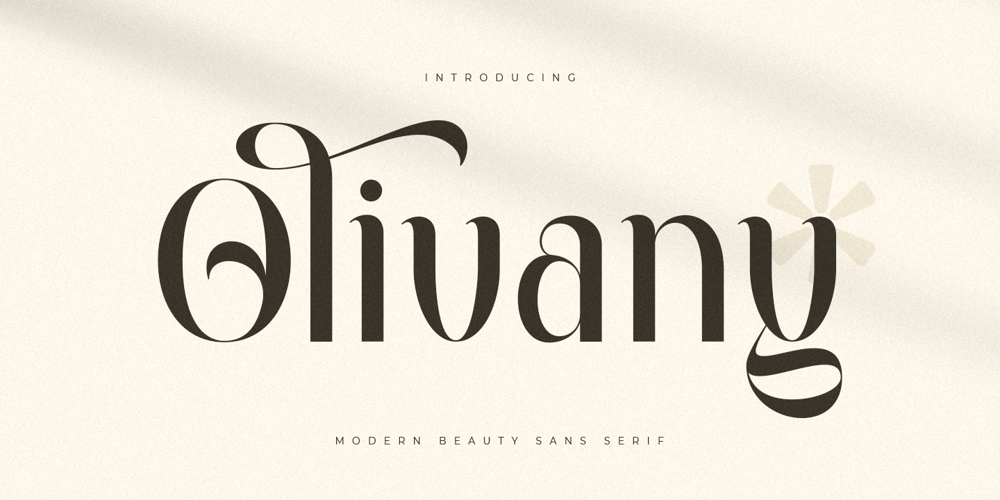
Olivany
Olivany font
Olivany Font Family was designed by Zamroni Hamzah and published by Sensatype Studio. Olivany contains 1 styles and family package options. A new Sans serif that we created special for branding needs, with extra ligature in unique shape add value of your brand. It so nice to leverage designer or product owner that need solutions to make their design look more stylish and modern. And specially for Young font, We prepared any ligatures, and any alternate characters to help you create unlimited variations for your creative needs.Olivany Modern Beauty sans serif font ready with: Any options to get creative variations (combination of Alternate and Ligatures) Preview as a inspirations that you can do with Olivany font Ready with Lowercase and Uppercase characters Wish you enjoy our font!